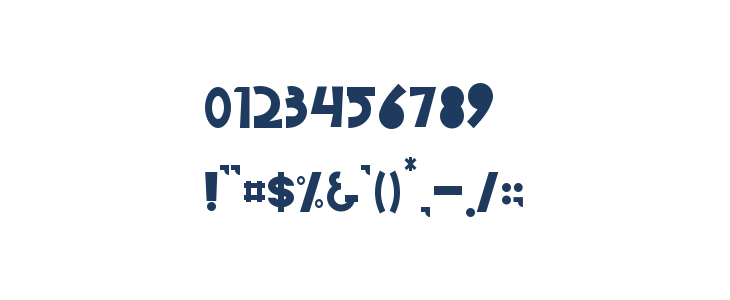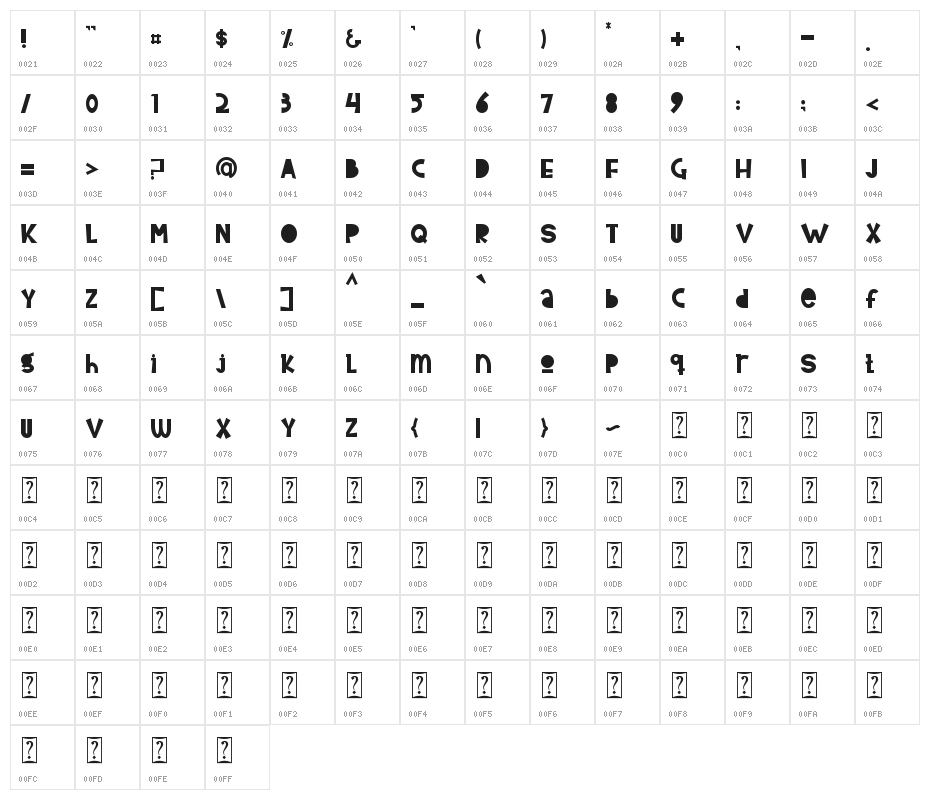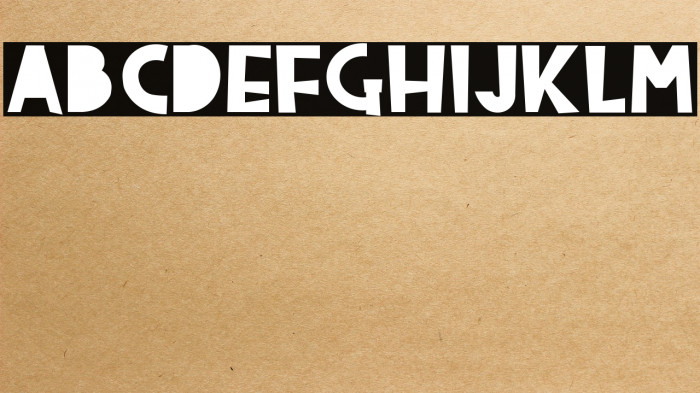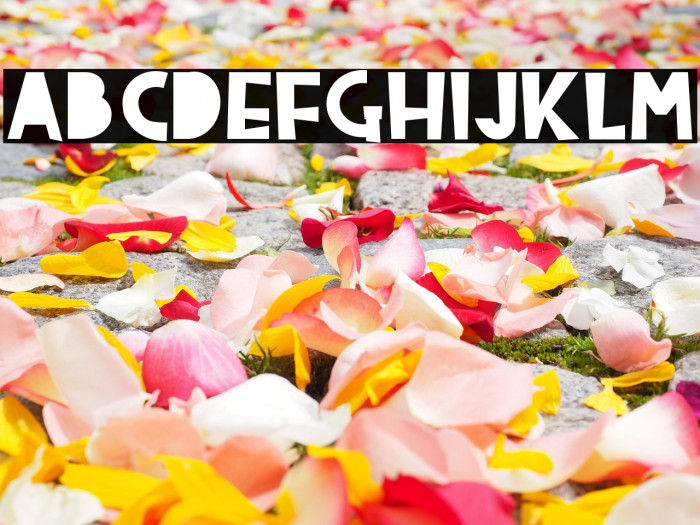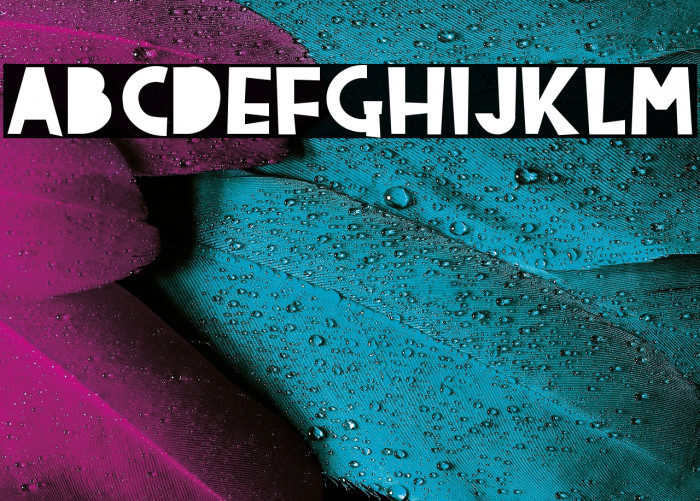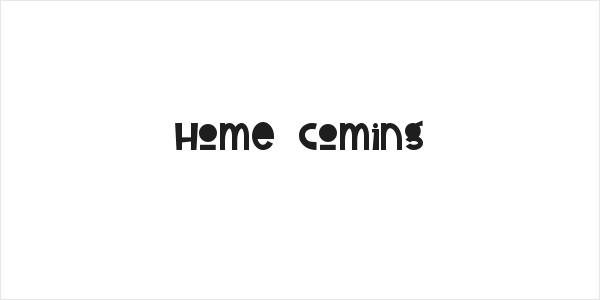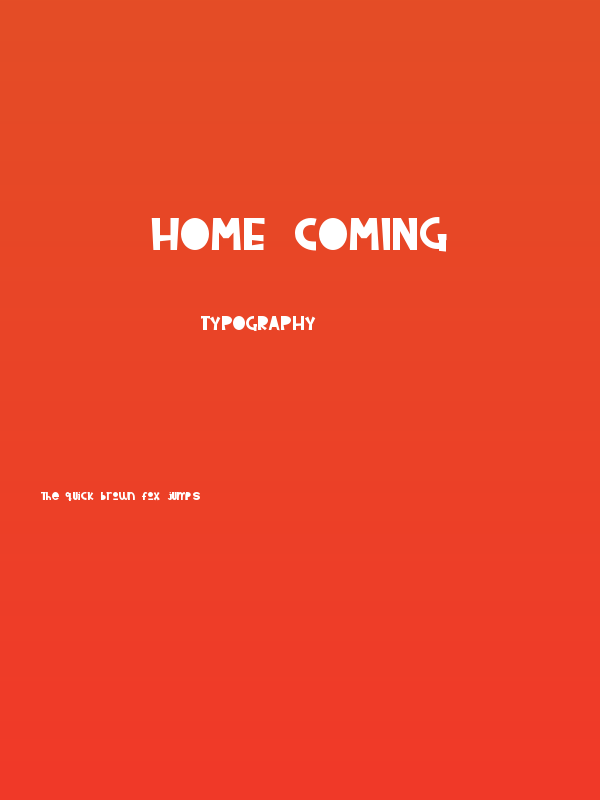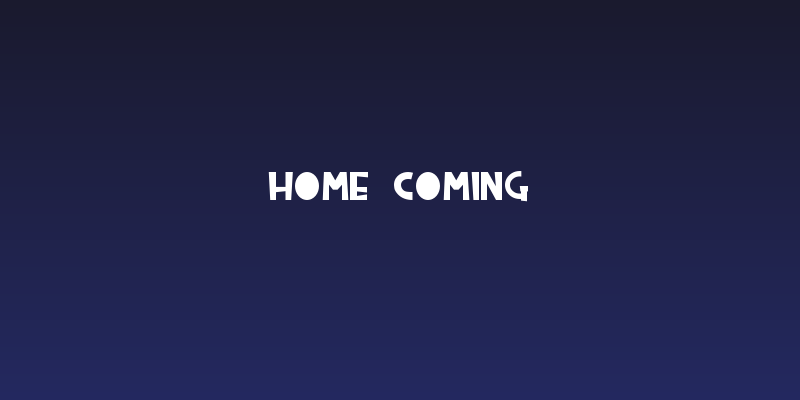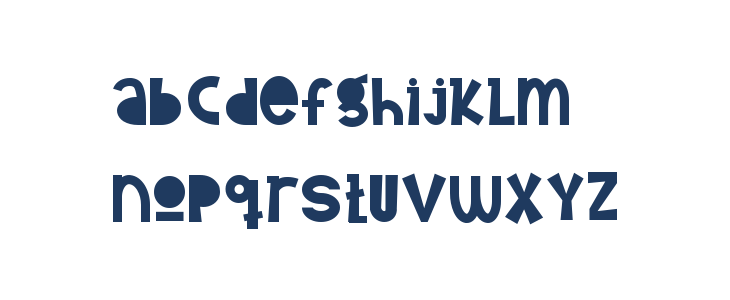
Home Coming Font
Home Coming Description
This font features a bold and playful design with a unique, quirky style. The letters are characterized by their thick, uneven strokes and slightly irregular shapes, giving them a whimsical and informal appearance. The uppercase and lowercase letters maintain a consistent weight, while the numbers and special characters are equally bold and expressive. The overall design is eye-catching and suitable for creative projects that require a fun and lively touch.